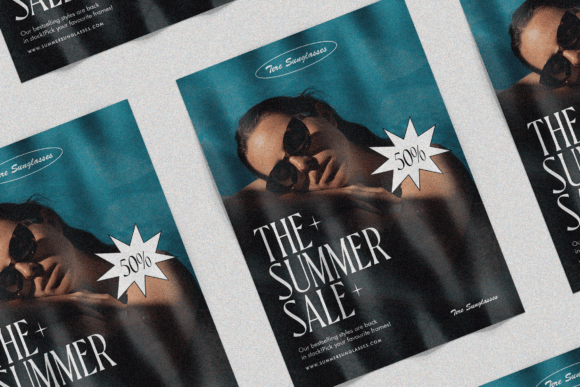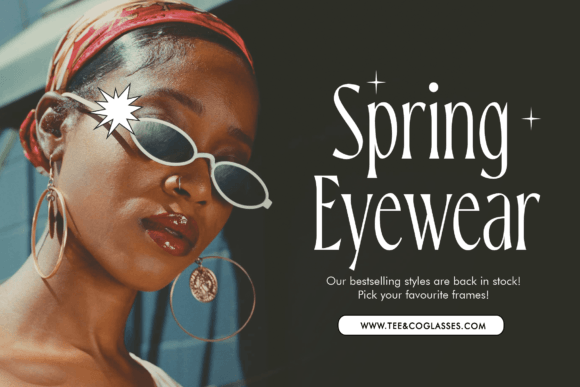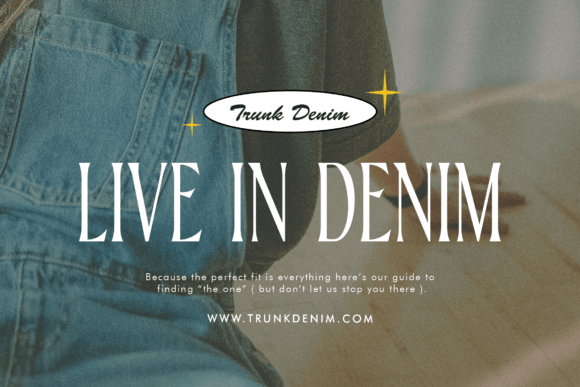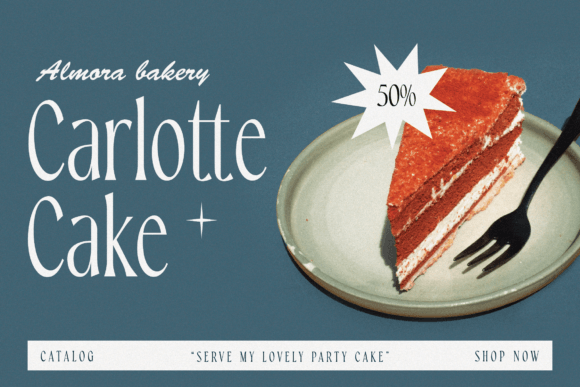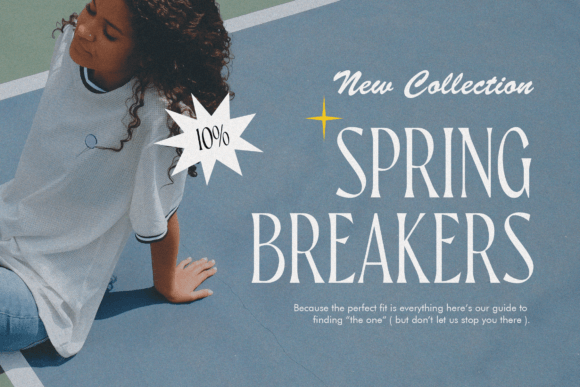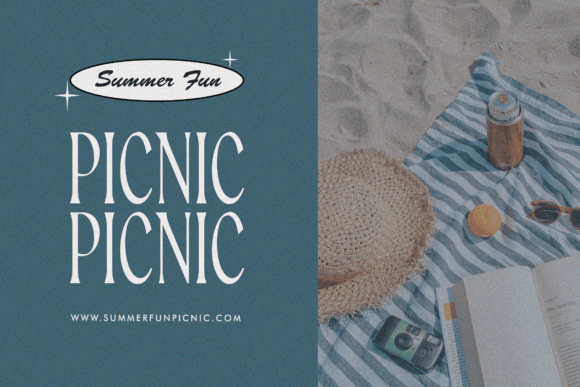
Newstalgic Font
Newstalgic is a classic, retro, beautiful, and elegant serif font perfect for your upcoming projects. Add it to your logos, branding, classy editorial designs, woman magazines, cosmetic brands, fashion promotional, art gallery branding, museums, historical, architectural, boutique branding, stationery design, blog design, modern advertising design, card invitations, art quotes, home decor, book/cover title, special events, and any more.